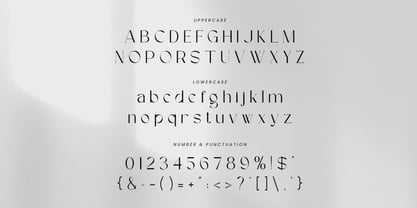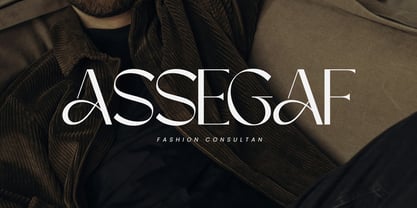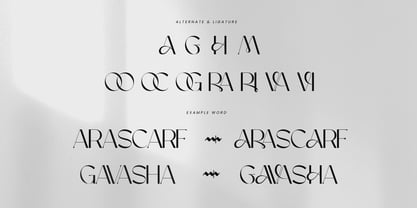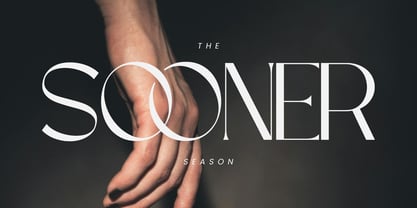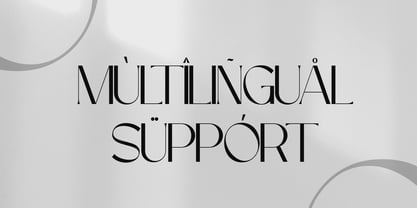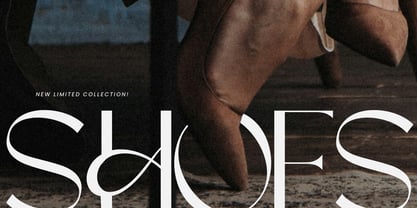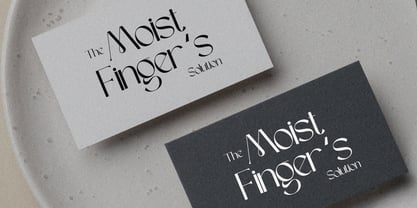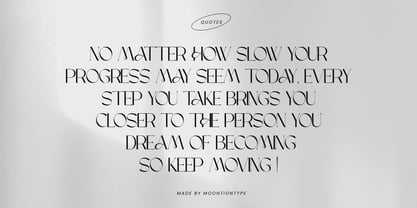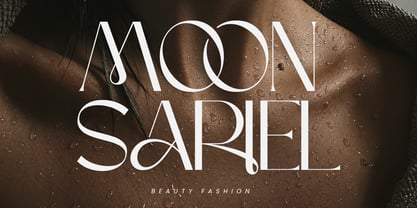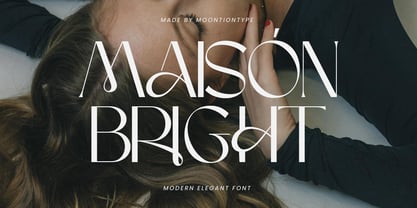
Maison Bright
by Moontiontype
The Maison Bright Font Family was designed by Dinda Nur Dwiyanti and published by Moontiontype. Maison Bright contains 1 styles. More about this family
Maison Bright is a modern elegant sans serif font that combines high-fashion sophistication with artistic, flowing letterforms. Its refined curves, stylish ligatures, and luxurious strokes create a distinctive look that feels both contemporary and timeless. Perfect for branding, editorial design, logos, packaging, invitations, and any project that requires a touch of elegance and exclusivity. Maison Bright brings a classy, high-end aesthetic that stands out effortlessly. Maison Bright Available With : - Uppercase - Lowercase - Numbers - Punctuation - Multilingual support - Alternate - Ligature Thank You Moontiontype
Designers: Dinda Nur Dwiyanti
Foundry: Moontiontype